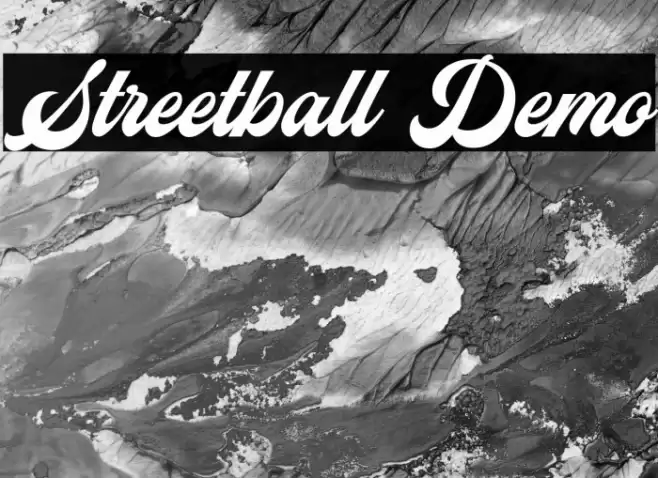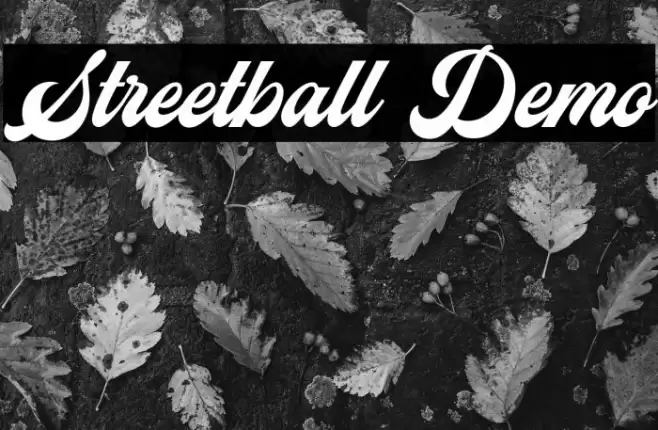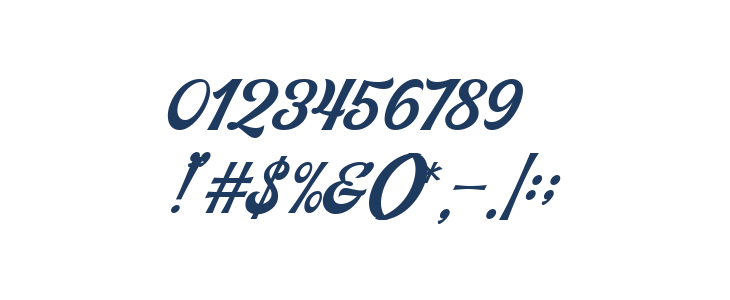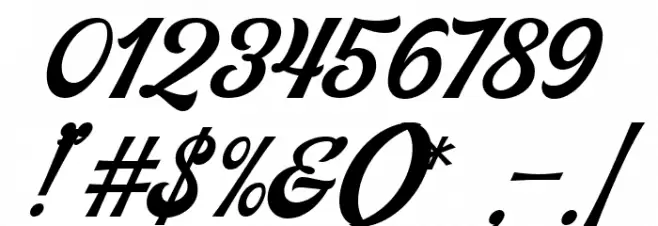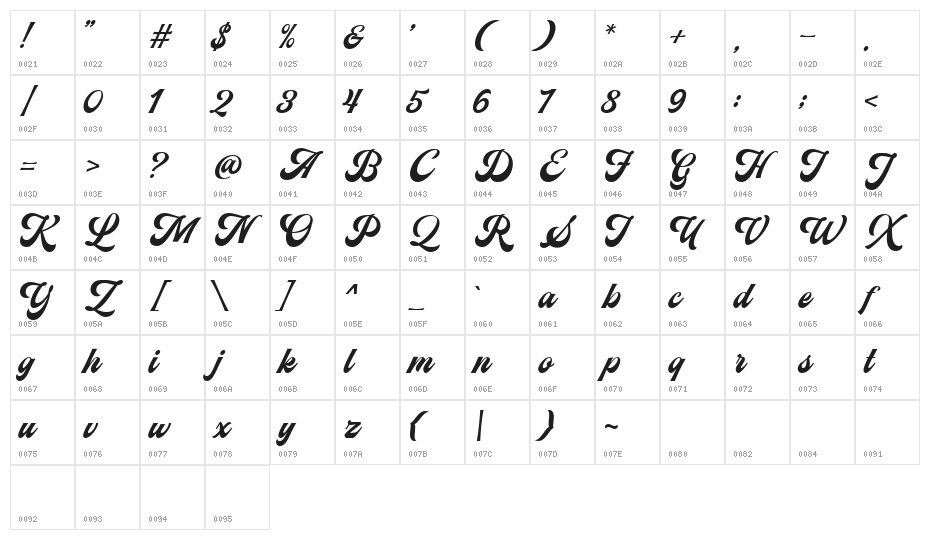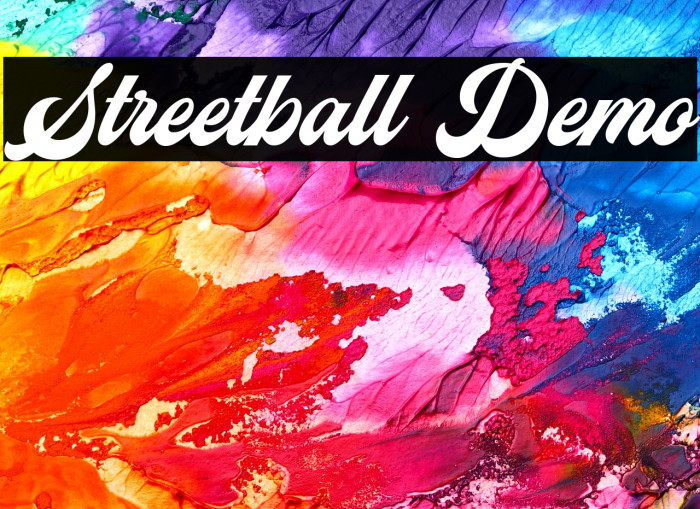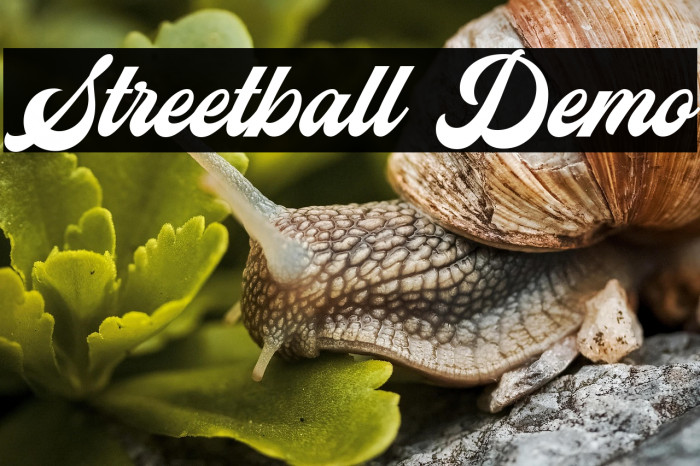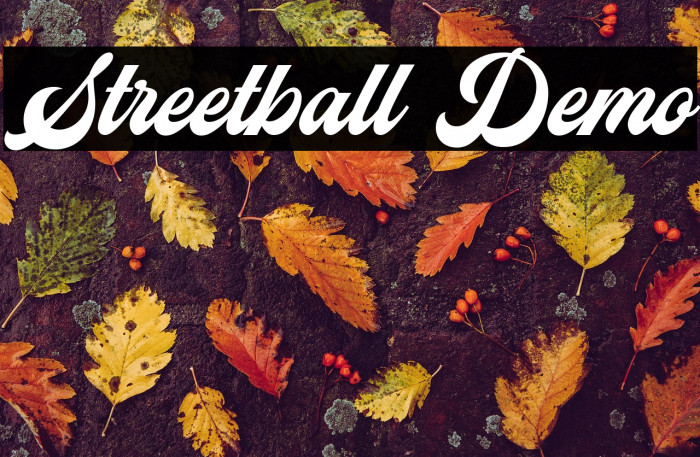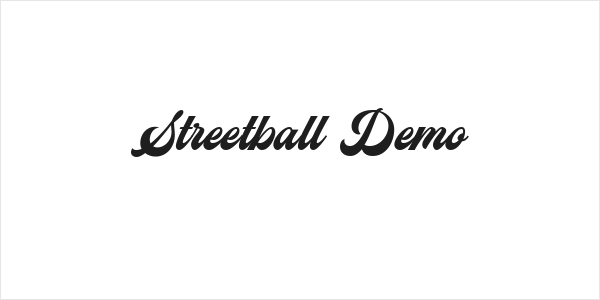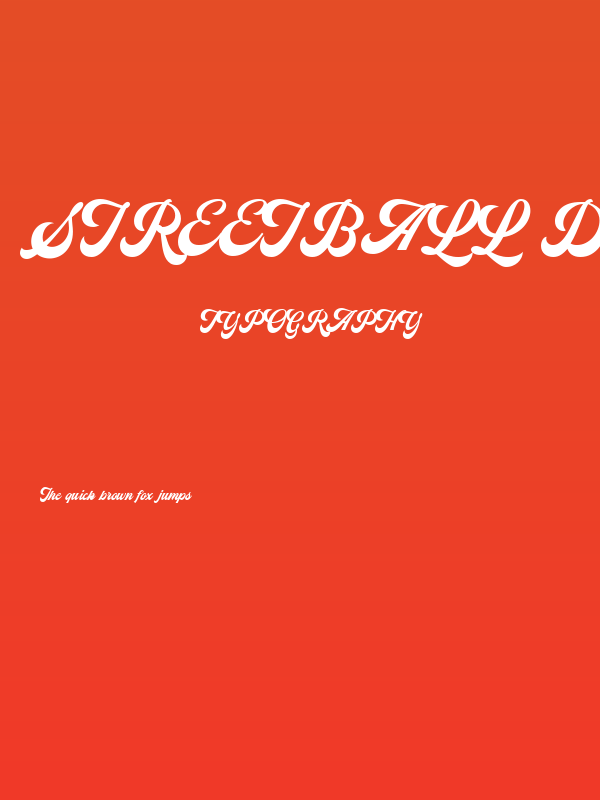
Streetball Demo Font
Streetball Demo Description
This font exudes a dynamic and energetic style, characterized by its bold and flowing script. The uppercase letters have a distinct slant, giving them a sense of motion and flair, while the lowercase letters maintain a consistent rhythm with smooth curves and elegant loops. The numerals are equally expressive, with a bold presence that complements the overall aesthetic. Special characters are designed with the same attention to detail, ensuring a cohesive look across all glyphs. This font is perfect for projects that require a touch of personality and vibrancy.
A bold, flowing script font with dynamic and energetic style from Regular fonts.